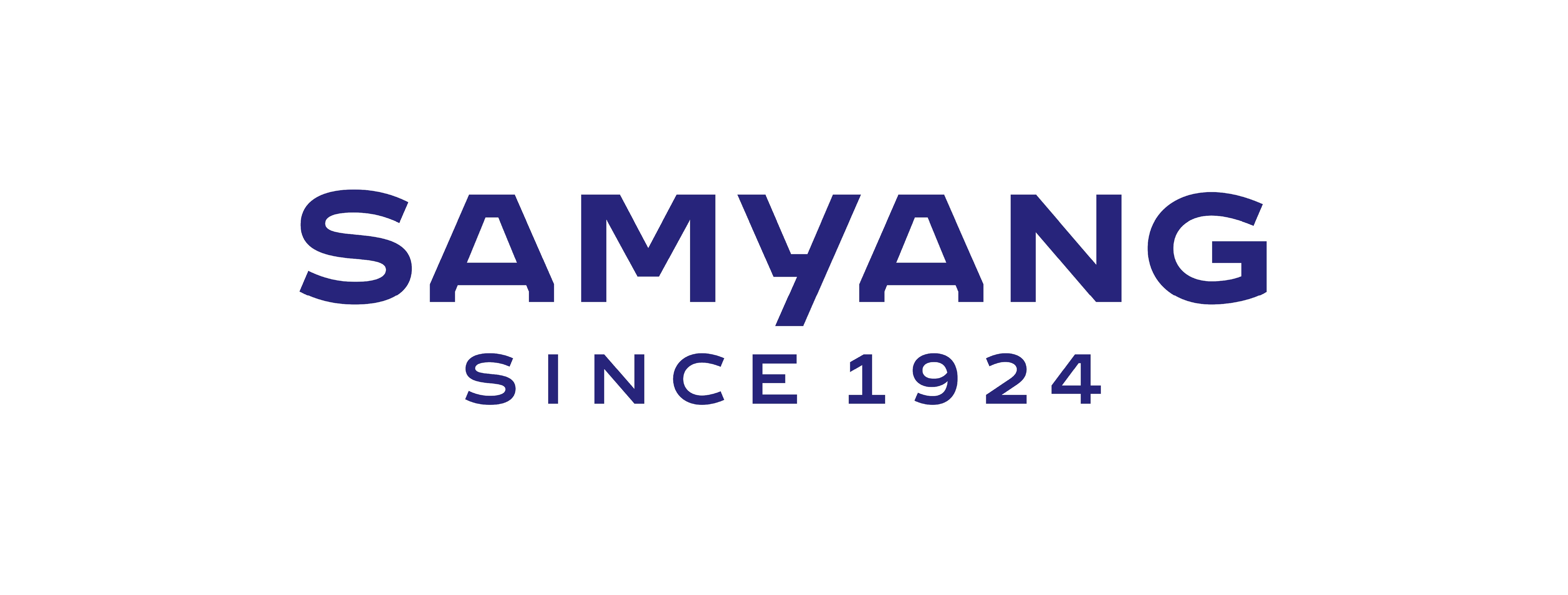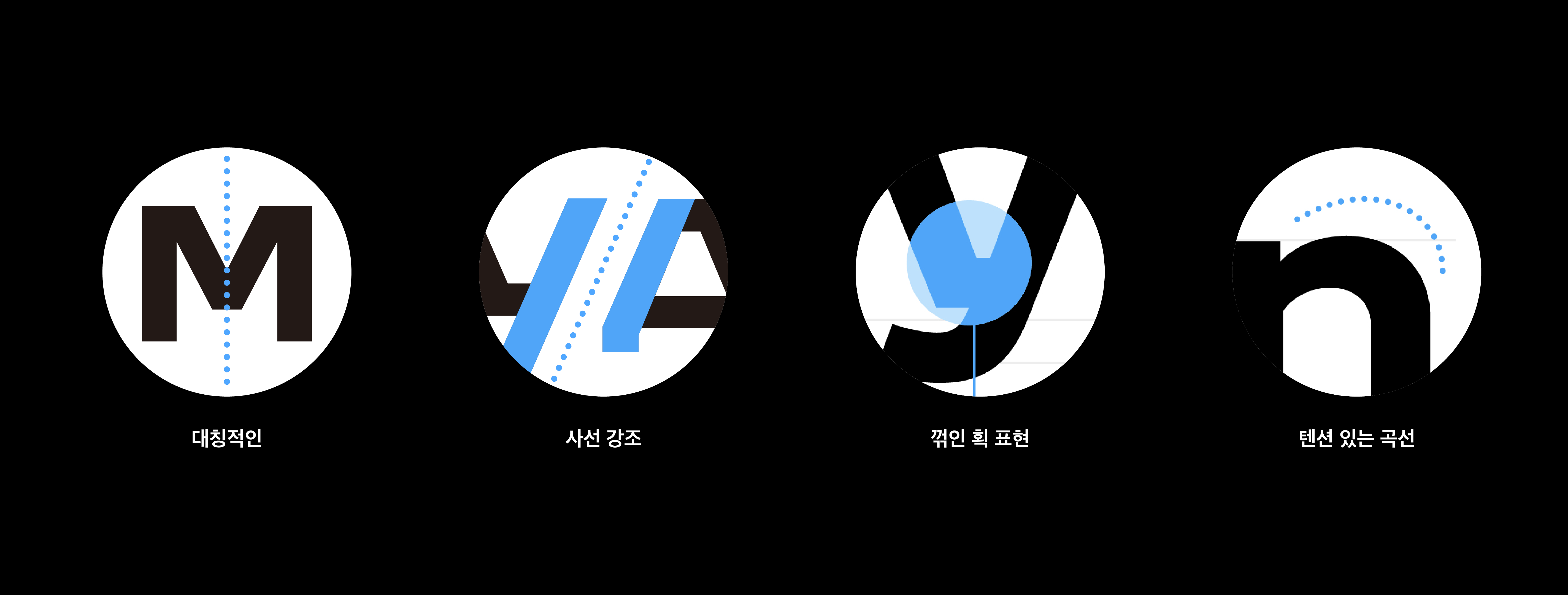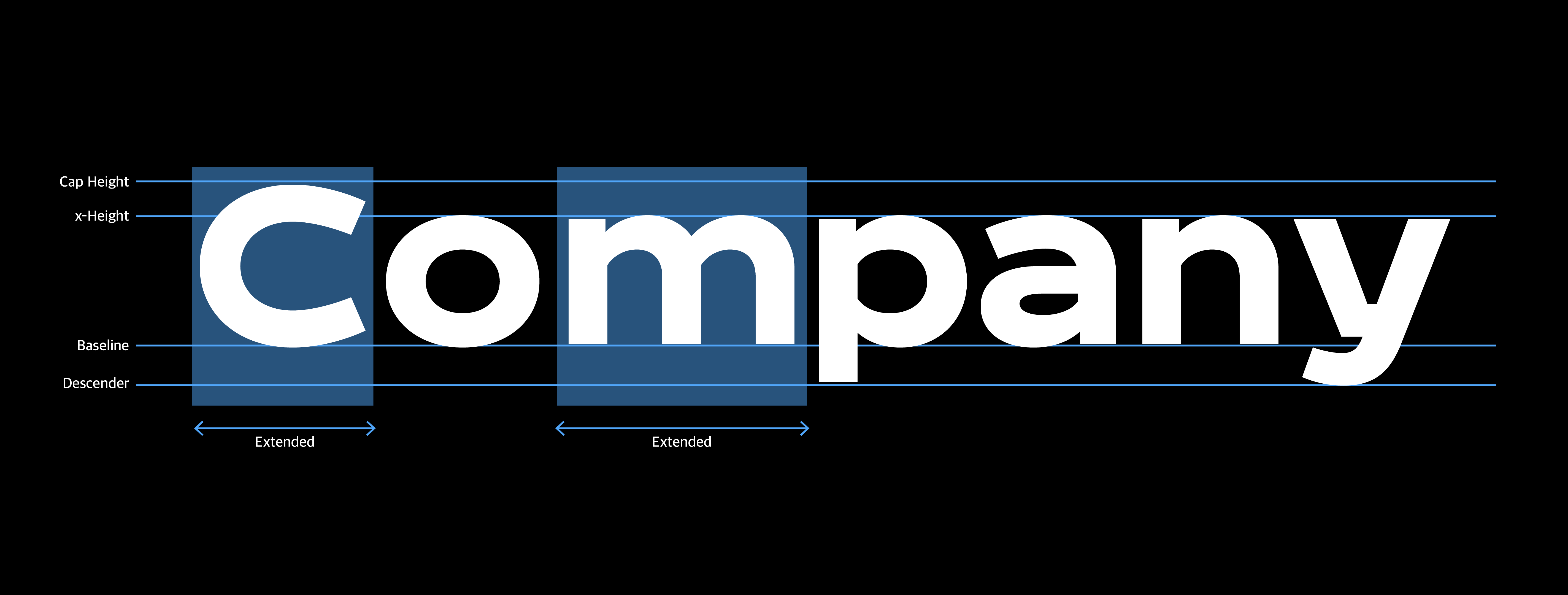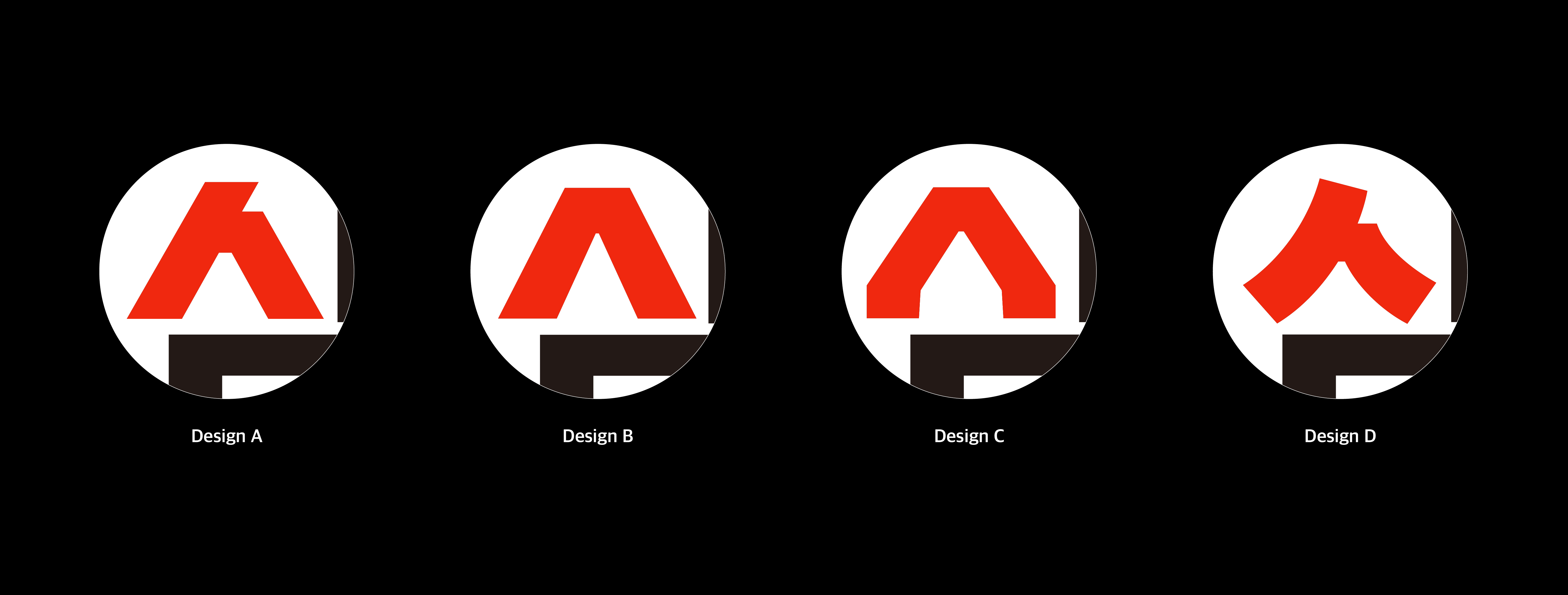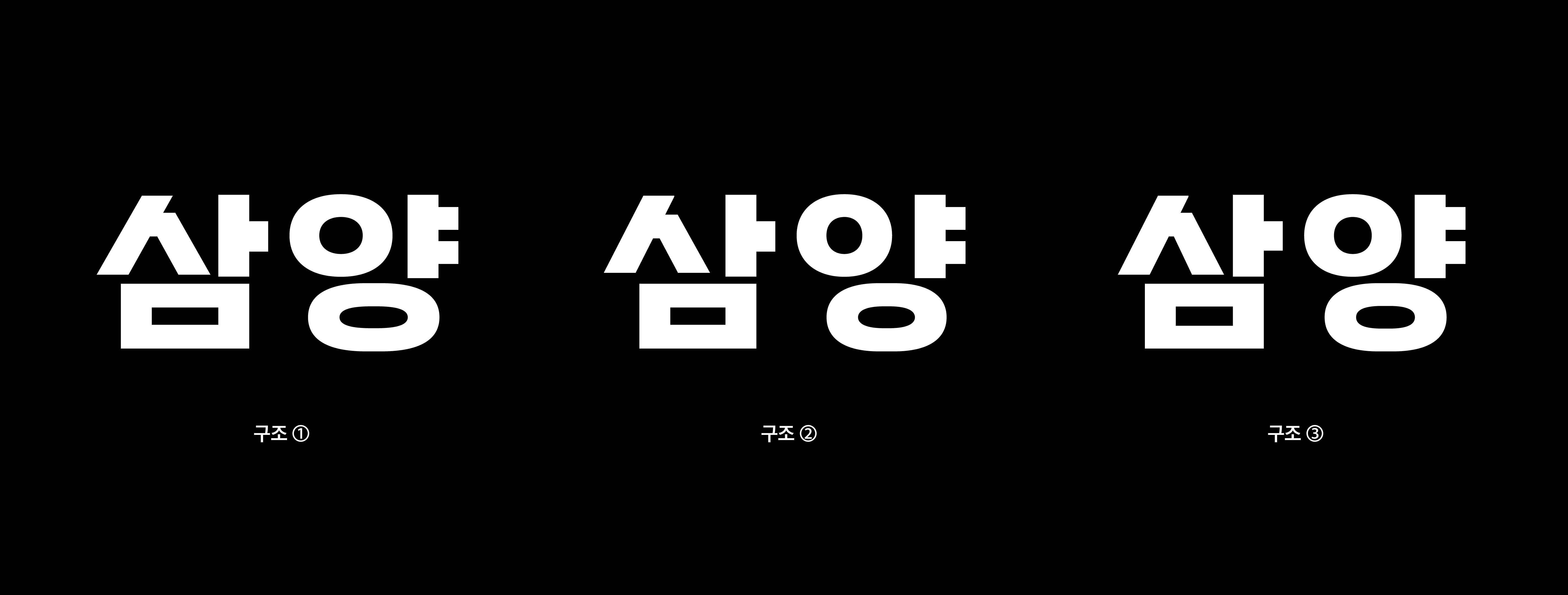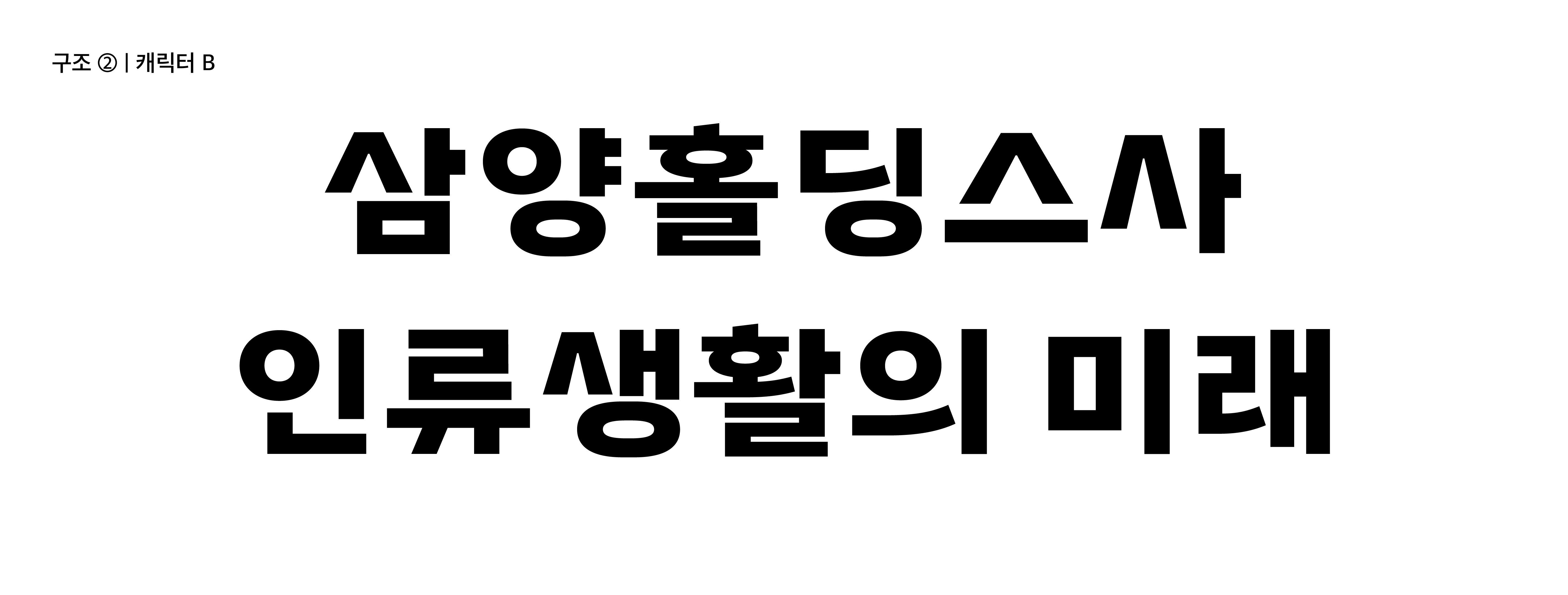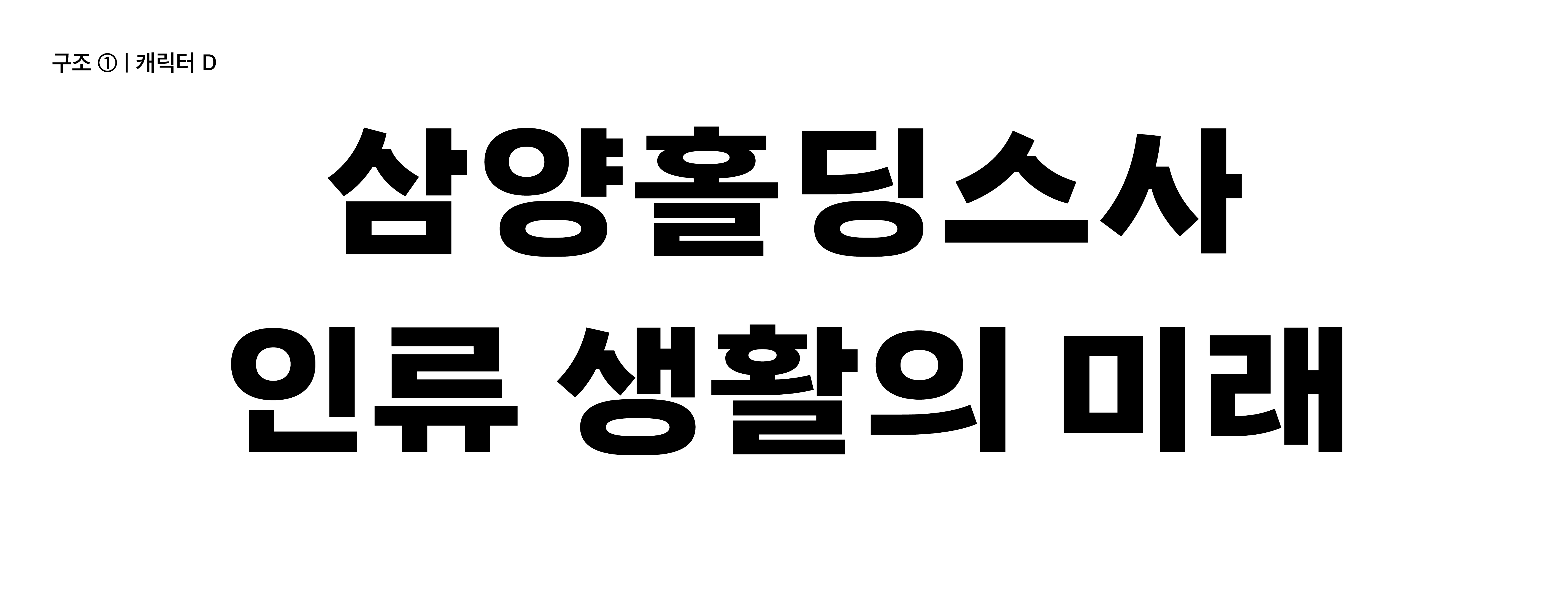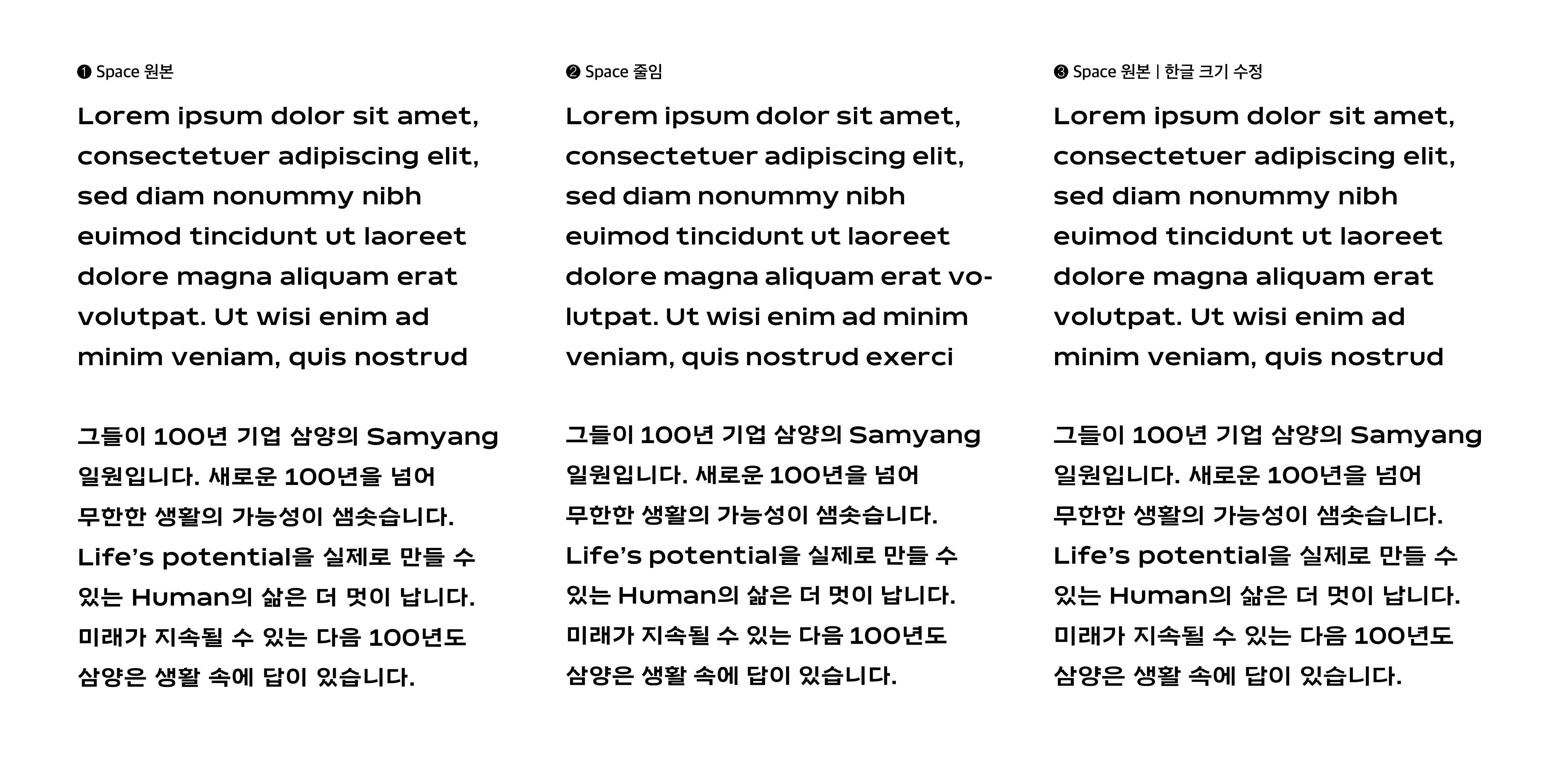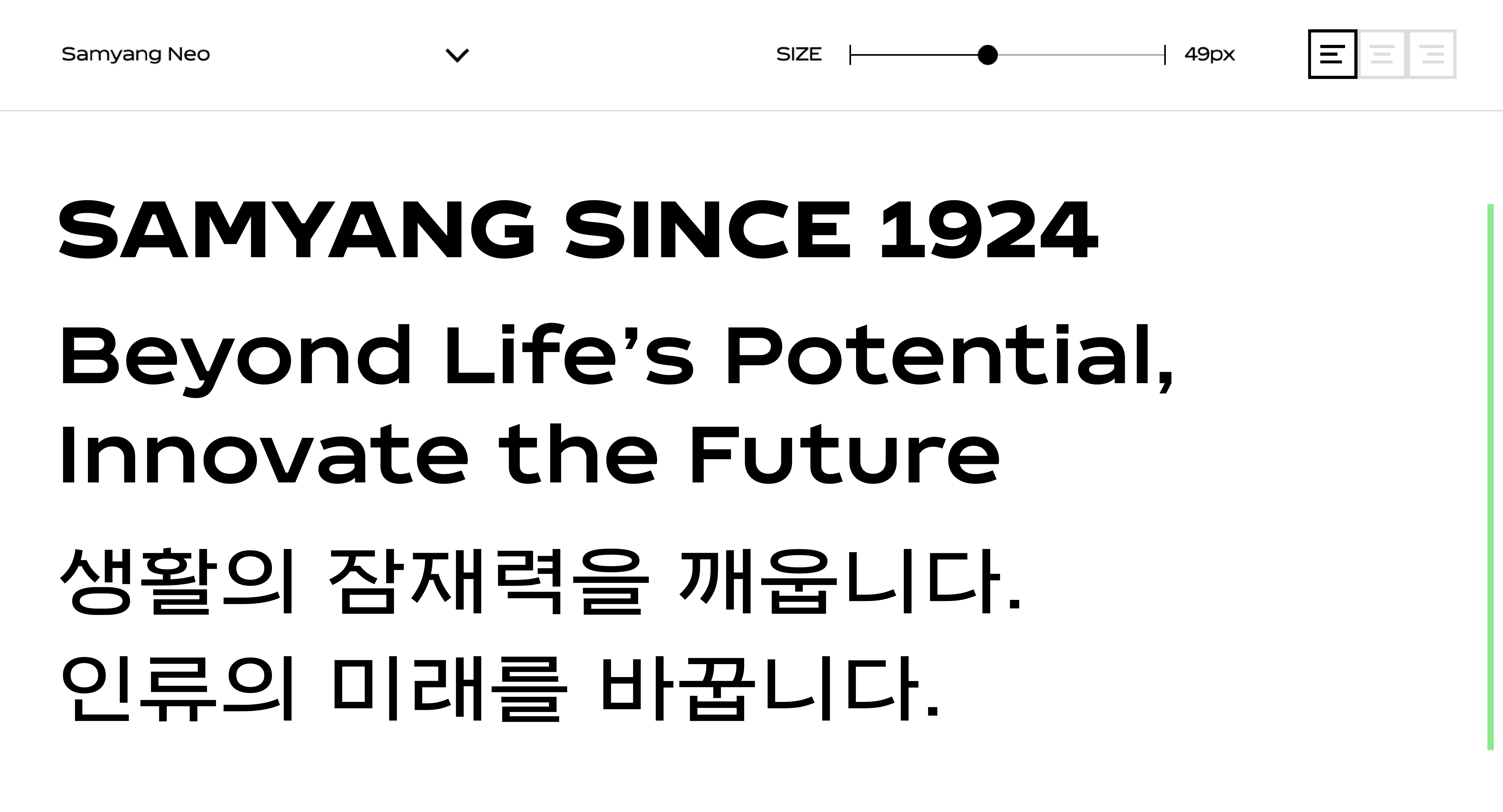
Samyang Refreshes Its Brand for Its 100th Anniversary
In 2024, Samyang Group marked its 100th anniversary by renewing its brand image and unveiling a new CI. This renewal, carried out with the brand philosophy of challenge, expertise, and responsibility as its motif, is the result of a collaboration between Samyang Group, the world-renowned designer Neville Brody, and his studio, Brody Associates. Along with this, a dedicated font, 「Samyang Neo」, was newly introduced.
「Samyang Neo」 is a proprietary font developed based on the core design elements of the new CI, embodying Samyang’s unique identity. Sandoll was responsible for developing the Hangul font 「Samyang Neo KR」. Taking part in a new chapter of a brand with such a long history as Samyang was both a responsible and an enjoyable experience. From here, we would like to share the behind-the-scenes story of the creation of 「Samyang Neo KR」.
Analyzing the DNA of the CI and the Latin
The most important core of this font development was to naturally translate the DNA of the Latin and CI of 「Samyang Neo」—completed by designer Neville Brody—into Hangul.
Hangul and Latin are writing systems with fundamentally different structures, proportions, and rhythms. The linear structure of Latin alphabets, the number of strokes within each letterform, and the rhythm created by ascenders and descenders differ essentially from Hangul’s square-based composition, which is formed through the combination of initial, medial, and final consonant elements. For this reason, rather than simply replicating forms, careful calibration was required to bridge the cultural and visual gap between the scripts and to integrate their characteristics in a natural way.
To achieve this, an initial analysis of the visual language of the Latin and the CI was essential. By examining how Samyang’s brand philosophy—‘challenge’, ‘expertise’, and ‘responsibility’—was visually realized, we found that the design expresses a challenging and energetic image through forms emphasizing diagonals and tension-filled curves, while conveying trust and professionalism through symmetrical letterforms and solid, geometric angled strokes. Through this analysis, we derived character-defining traits such as ‘① symmetry, ② emphasis on diagonals, ③ expression of angled strokes, and ④ tensioned curves’, along with structural characteristics including an overall extended width and relatively short ascenders and descenders.
Reinterpreting the DNA in Hangul
With these characteristics analyzed, it was time to reinterpret and apply them in a way that aligns with the nature of Hangul. Even the same characteristics can be interpreted through various design approaches. Among the four traits derived from the analysis, we focused on the diagonal form of the ‘ㅅ’ jamo, which naturally expresses symmetry, an emphasis on diagonals, and the expression of angled strokes, and from this were able to develop four broad character directions as outlined below.
In addition, the extended structure of the Latin could also be interpreted in multiple directions. While keeping a wide width as a common baseline, we explored three structural approaches: structure ①, in which the jamo are designed to fully occupy the square frame, creating a sense of solidity; structure ②, in which the jamo occupy the square frame less fully, producing a sense of rhythm; and structure ③, which sits between the two, featuring a module comparable to that of a typical body text font.
By combining these differentiated structural and character expressions, we were able to design a wide range of proposals. There were truly many options, but here we will present the two proposals that remained under consideration until the very end.
The first applies structure ② with character B. It was designed by emphasizing the symmetrical letterforms and straight diagonals of the Latin. Rhythm was introduced through the structure, adding a sense of interest to forms that might otherwise appear rigid.
The second proposal applies structure ① with character D. Unlike the completely straight-lined feel of the Latin, curves were added to the two diagonal strokes of the ‘ㅅ’, preserving a more natural Hangul form and conveying a softer impression. Designed with a fully filled structure, it delivers a stable and solid feel similar to the Latin. Although there was considerable deliberation between the two options until the end, the second proposal was ultimately selected, as the coexistence of a solid structure with a gentle image was judged to be more suitable for the brand image.
Balancing Latin and Hangul
While the Hangul development was well underway, an unexpected issue emerged. As we combined Latin and Hangul into sentence-level compositions to check their balance, it became noticeable that the spacing in Hangul appeared relatively wider (❶). Until then, comparisons at the level of short words had not revealed any significant disparity, but when viewed in longer lines of text, the difference became clearly apparent.
This issue stemmed from the process of physically matching the sizes of Hangul and Latin, both designed with extended proportions. In a multi-script environment, where altering the already finalized Latin was not an option, the situation called for a particularly careful approach.
Taking part in such a special moment as Samyang’s 100th anniversary, and being able to work in step with outstanding designers, was in itself a remarkable and meaningful experience. In particular, it was a valuable project that allowed us to gain insights and know-how on the considerations required when designing for a multi-script environment. We believe that experiences like these will come together to form a solid foundation for Sandoll’s ongoing work of conveying brand stories through design, and with that belief, we conclude this article.